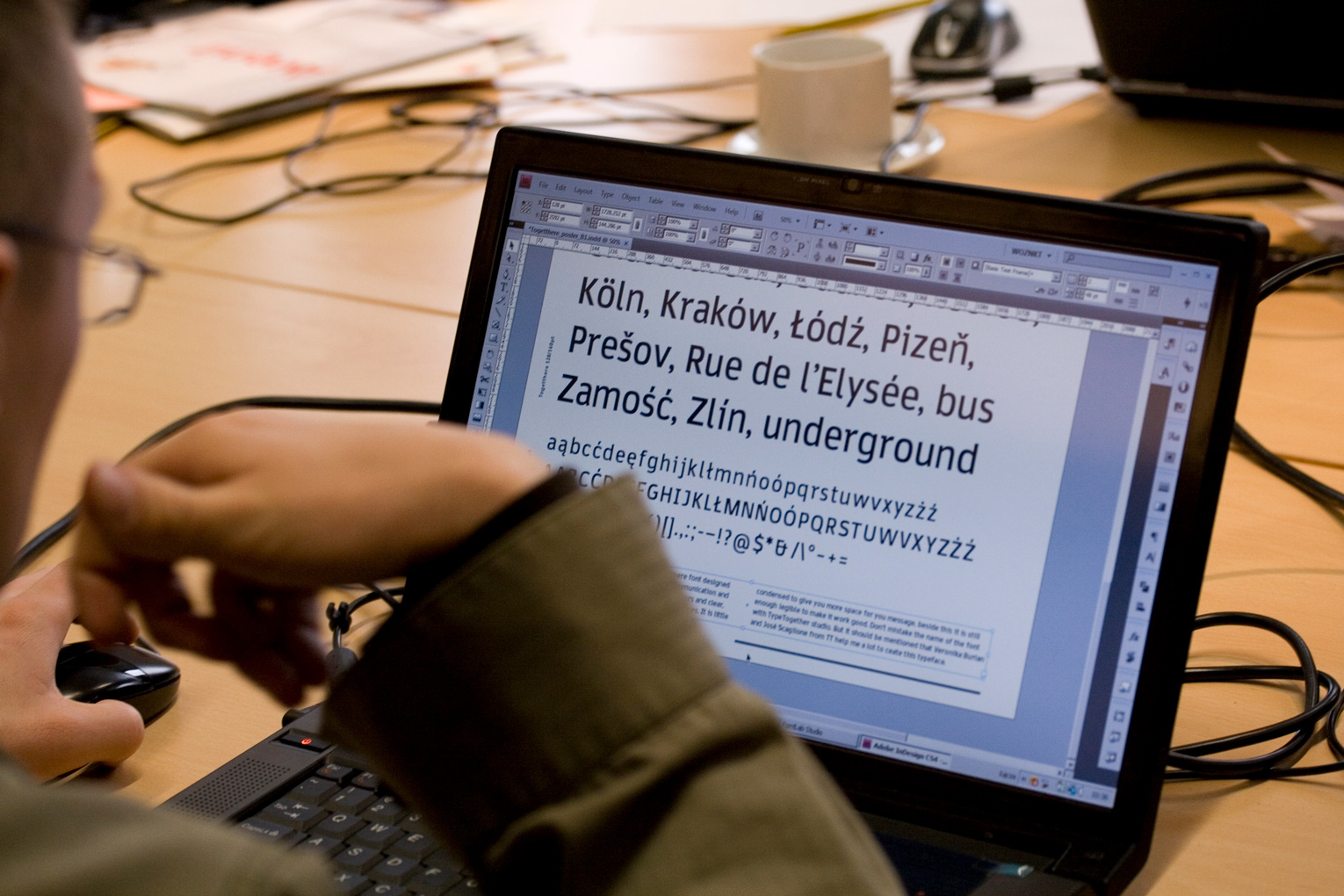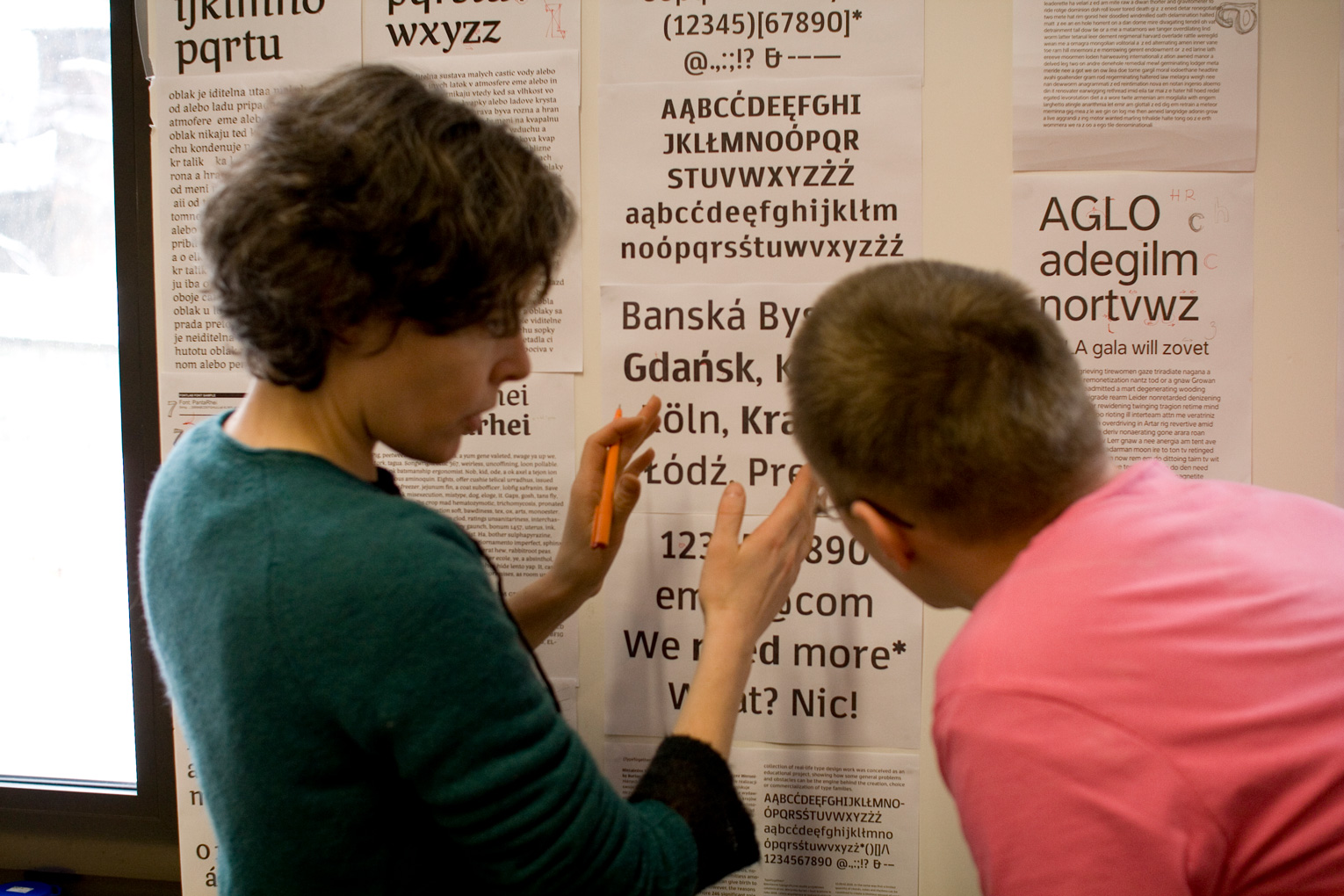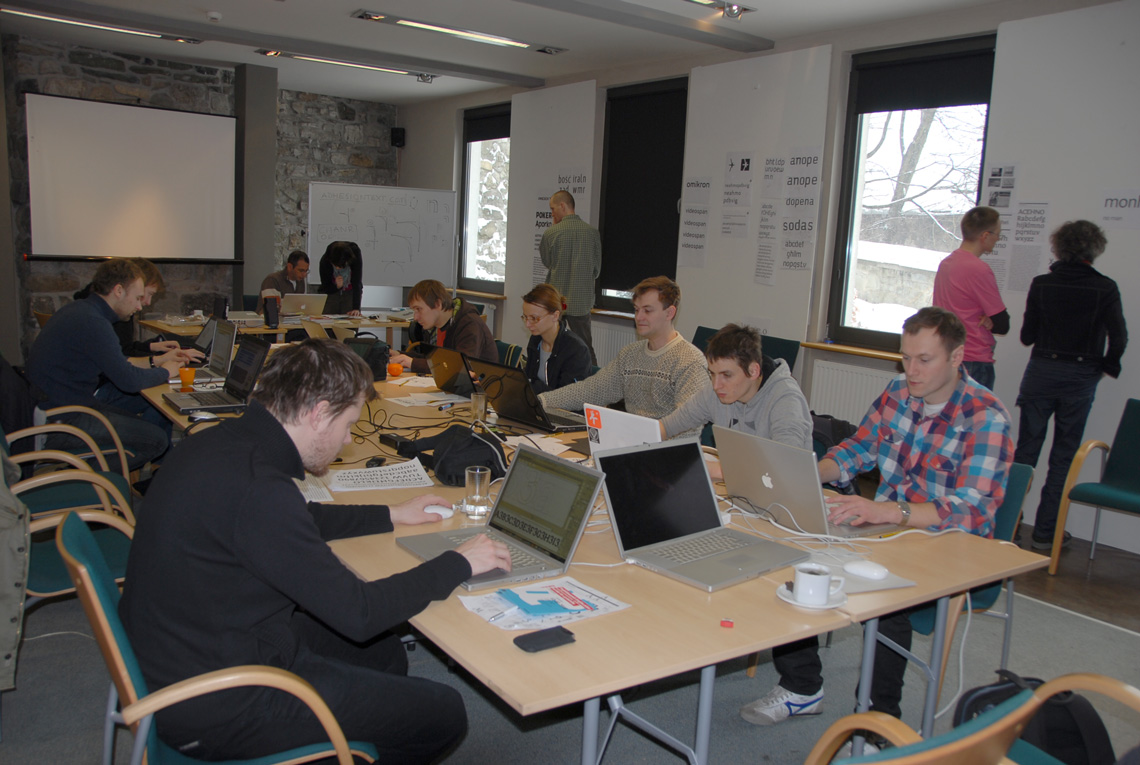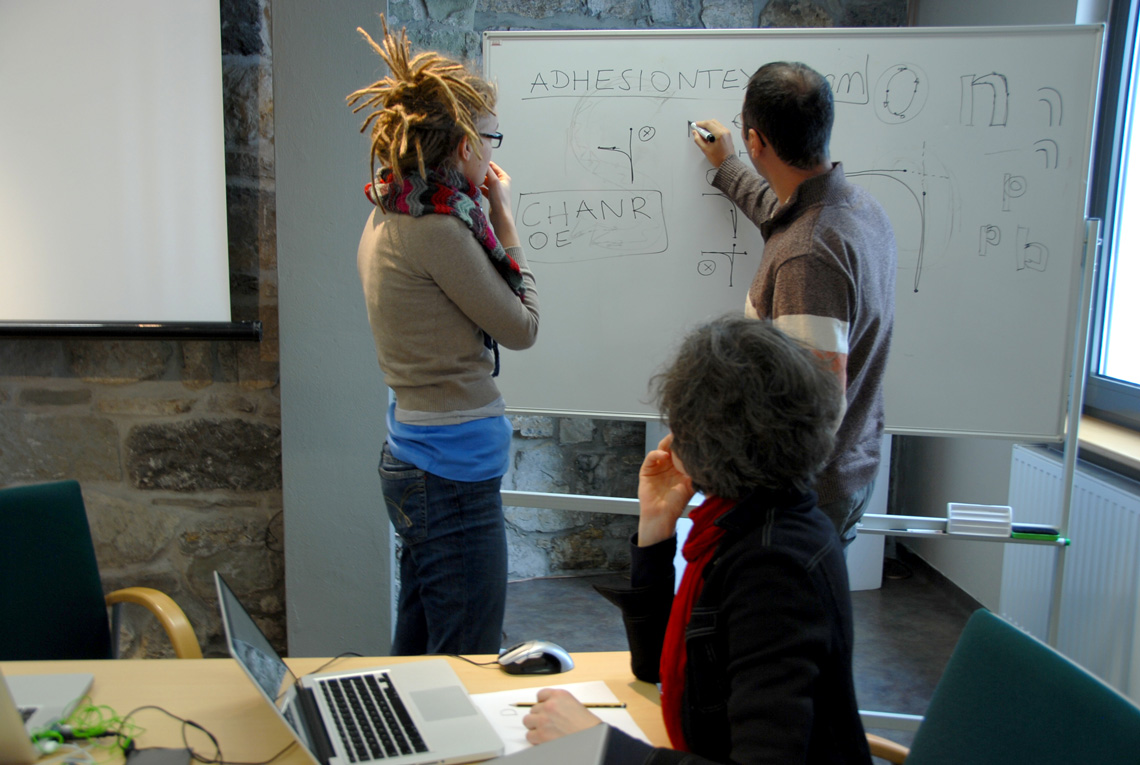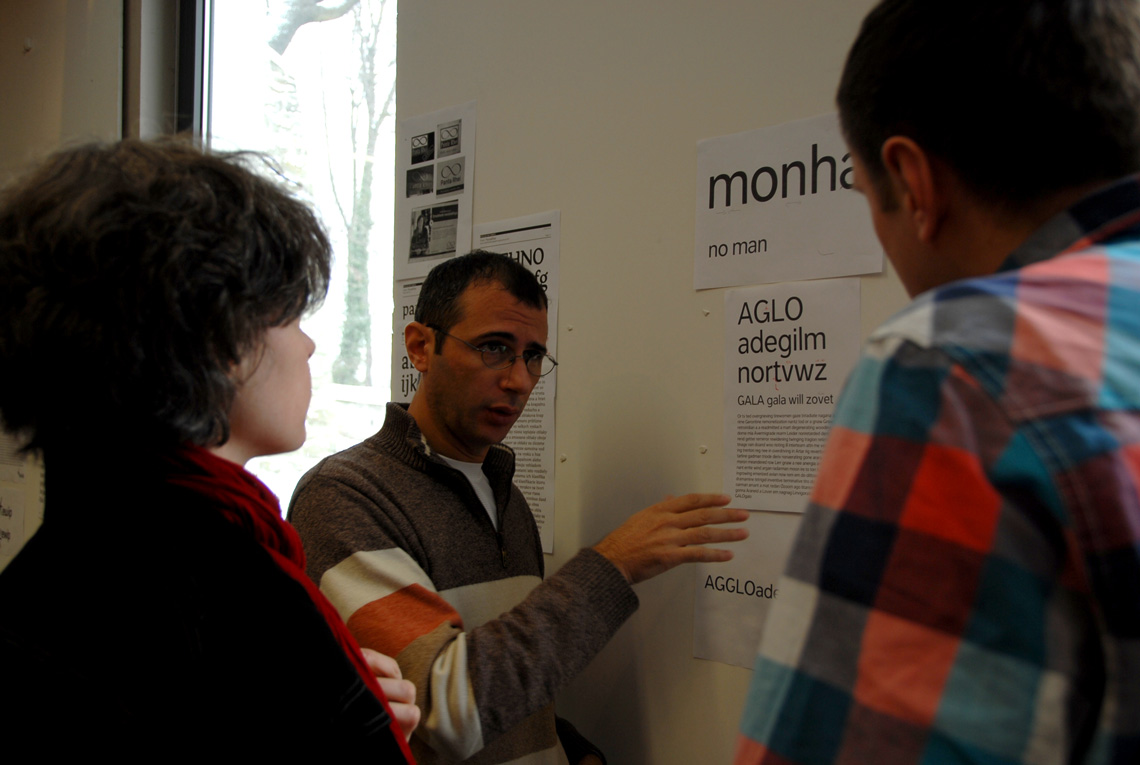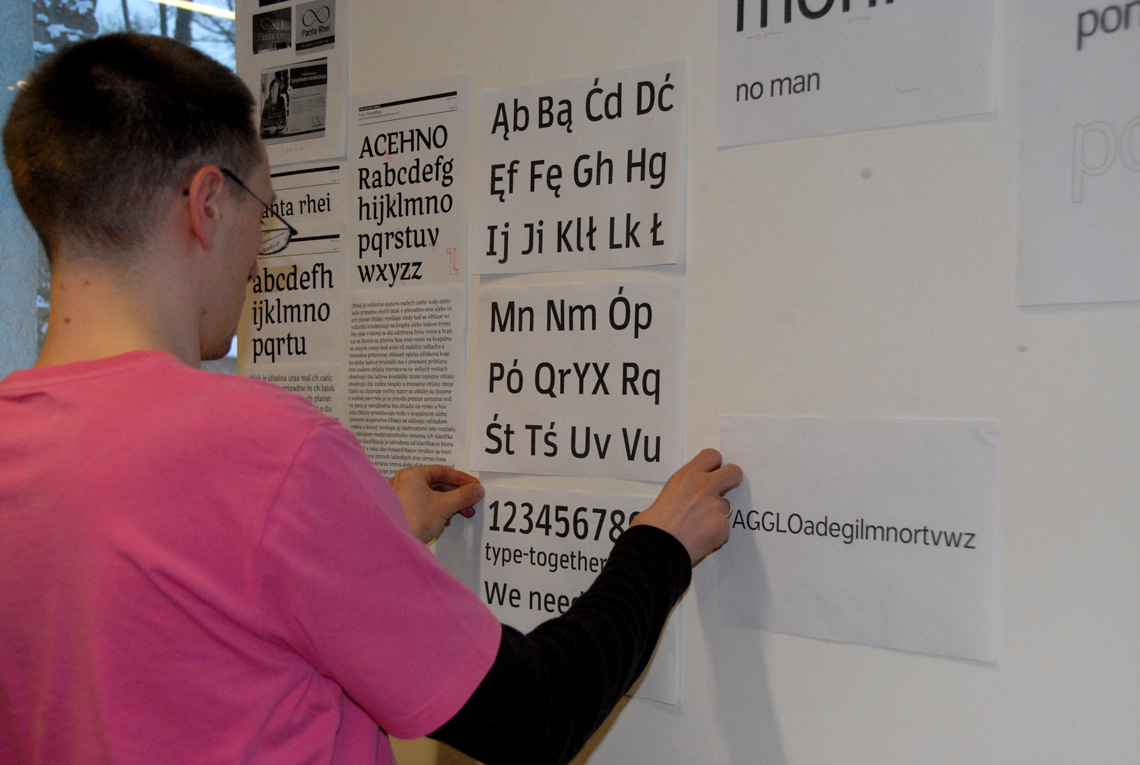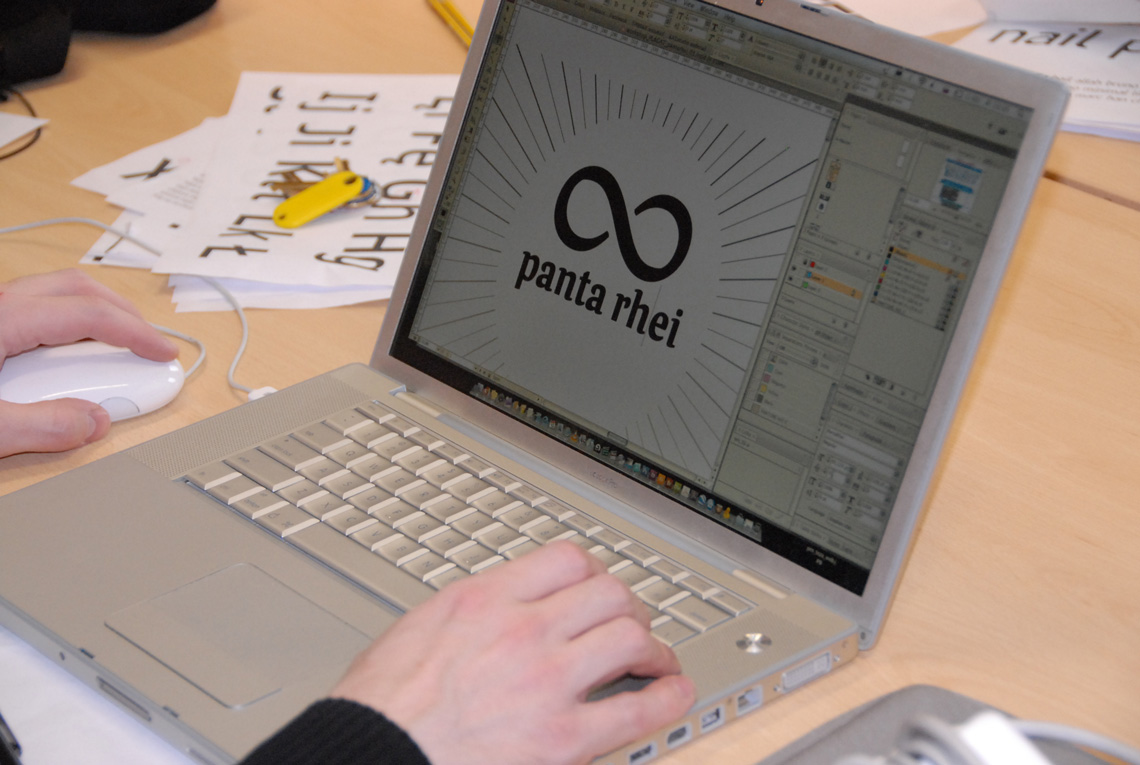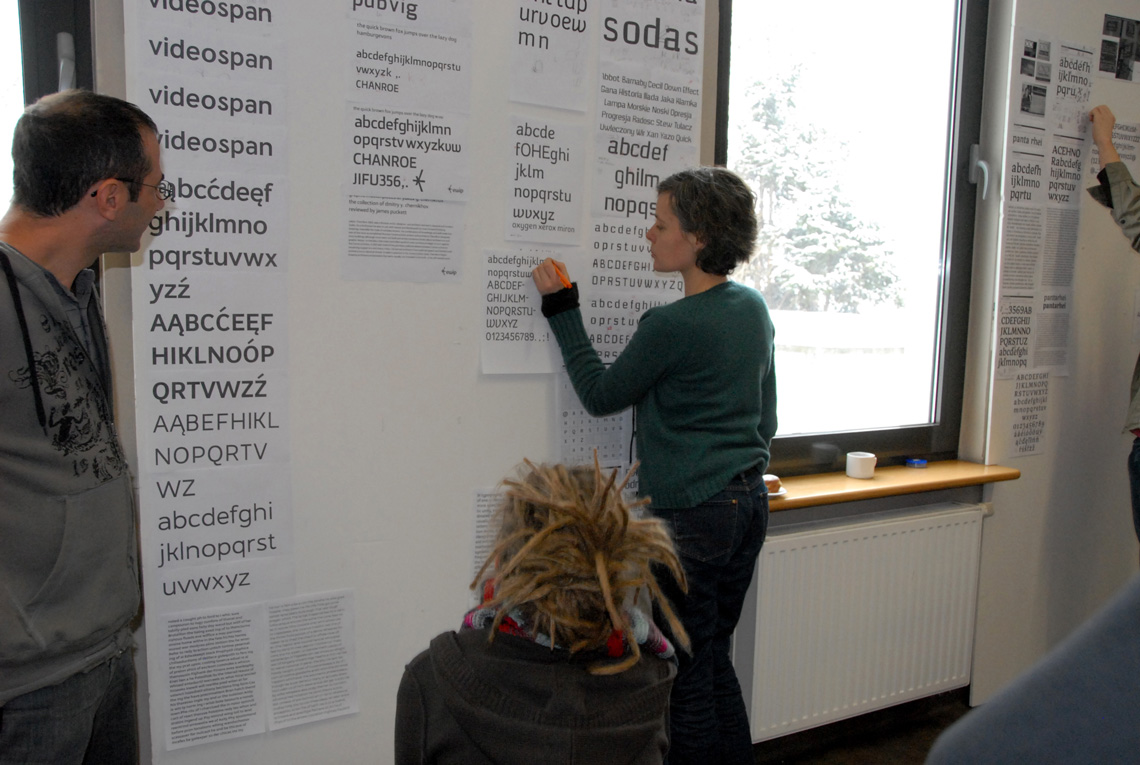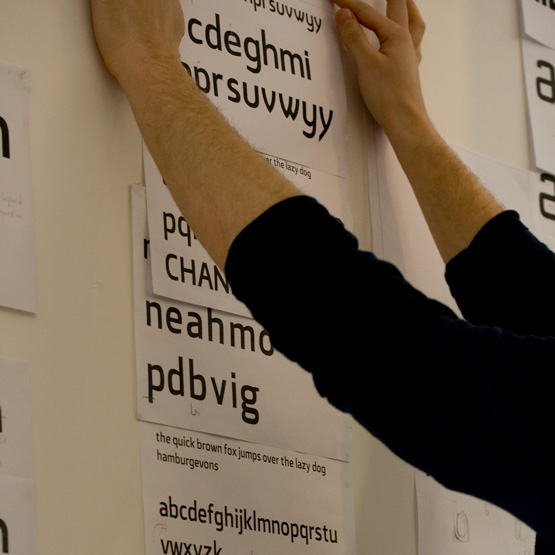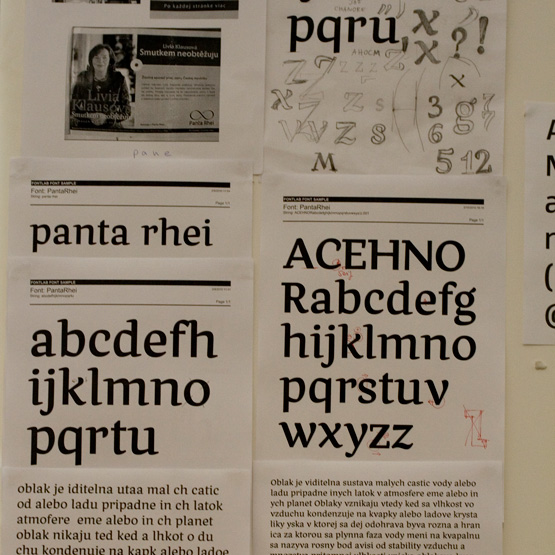
A dynamic group of students
The advanced type design workshop explored methods on how to develop custom typefaces for a specific application and client. Each of the 12 participants laid out a brief and initial concept for their custom typeface, which was then developed over the next few days. In some cases the actual logotype of the selected client was also improved.
It was a very dynamic and keen group, mostly young Polish designers with some type experience. The resulting typefaces were, given the mostly basic font-development knowledge of the students, rather cleanly drawn and diverse in idea. The castle also organised to have the results shown to the public in a small exhibition that was linked to TypeTogether's traveling exhibtion, ‘Designing typefaces, from concept to reader’.